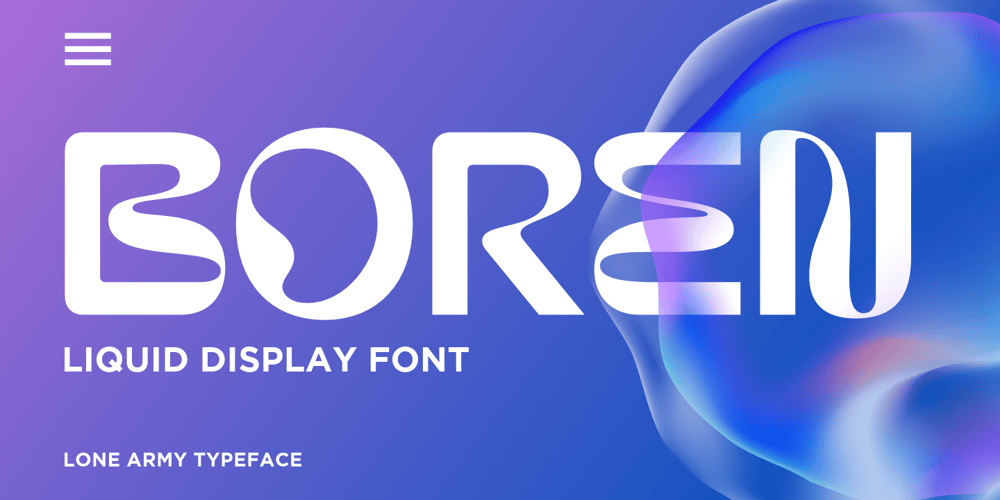
Boren Font Family was designed by Alfin Weniardi and published by Lone Army. Boren contains 1 styles and family package options. Revolutionary sans serif font BOREN with futuristic LiquidFlow style brings modernity and creativity. Crafted with precision, it captivates with smooth lines and high-tech aura, adding professionalism to projects. Choose BOREN for sophistication and futurism in your creative designs!